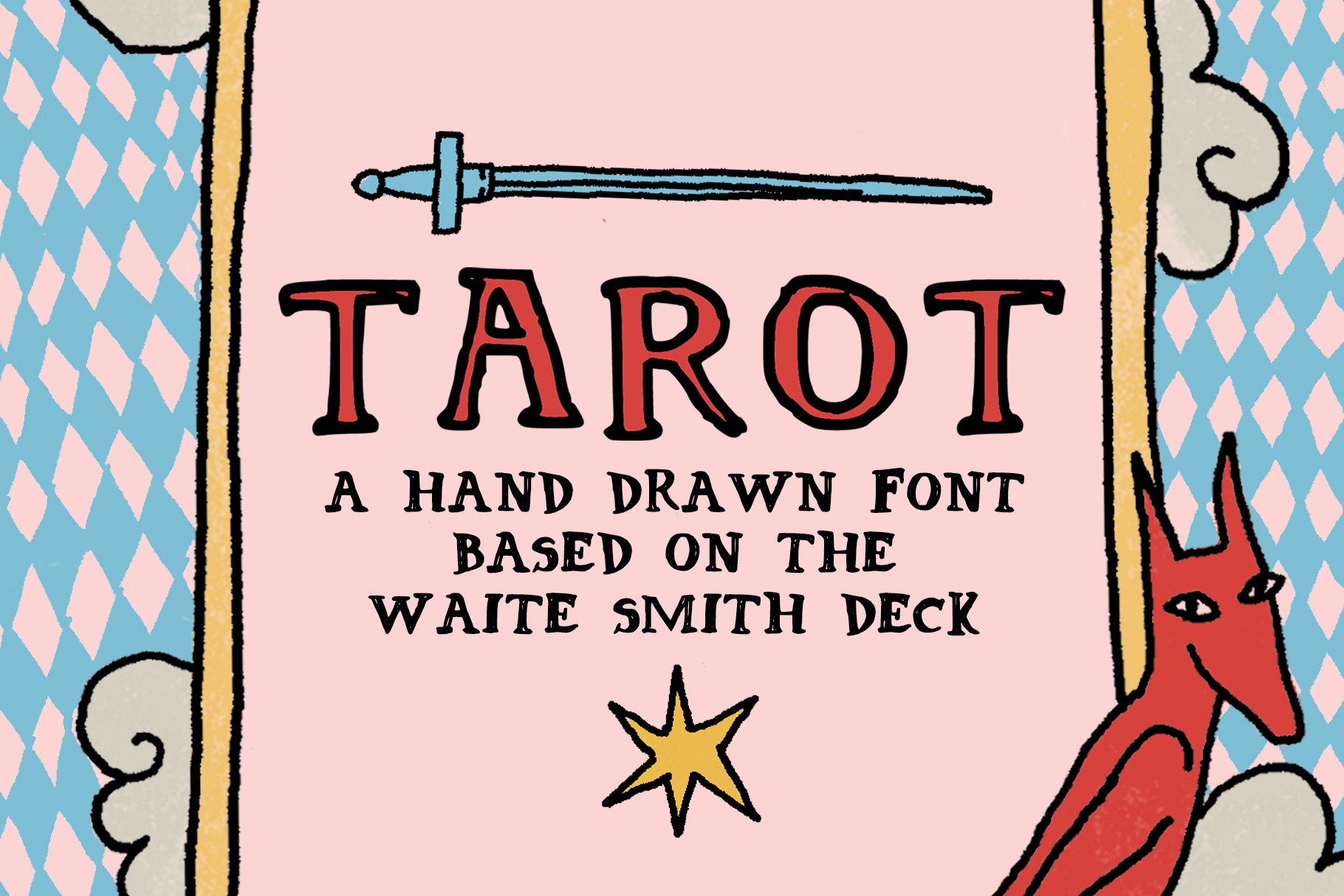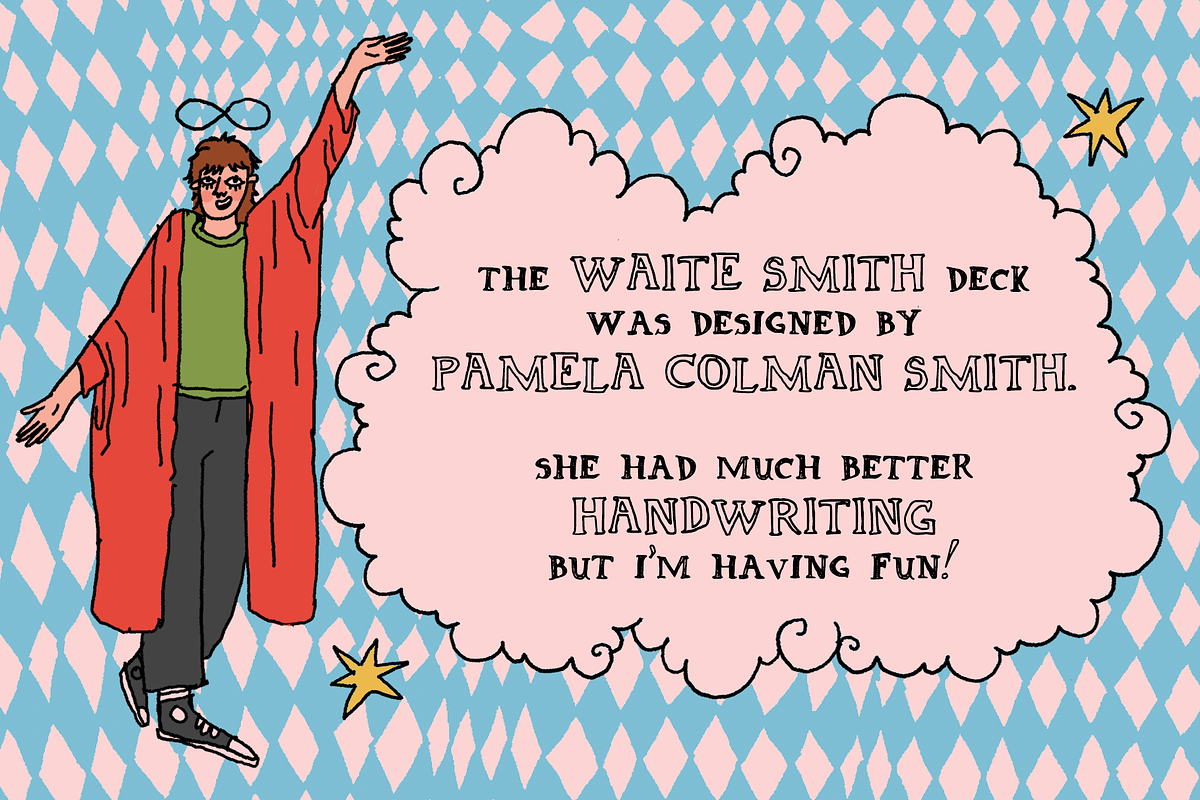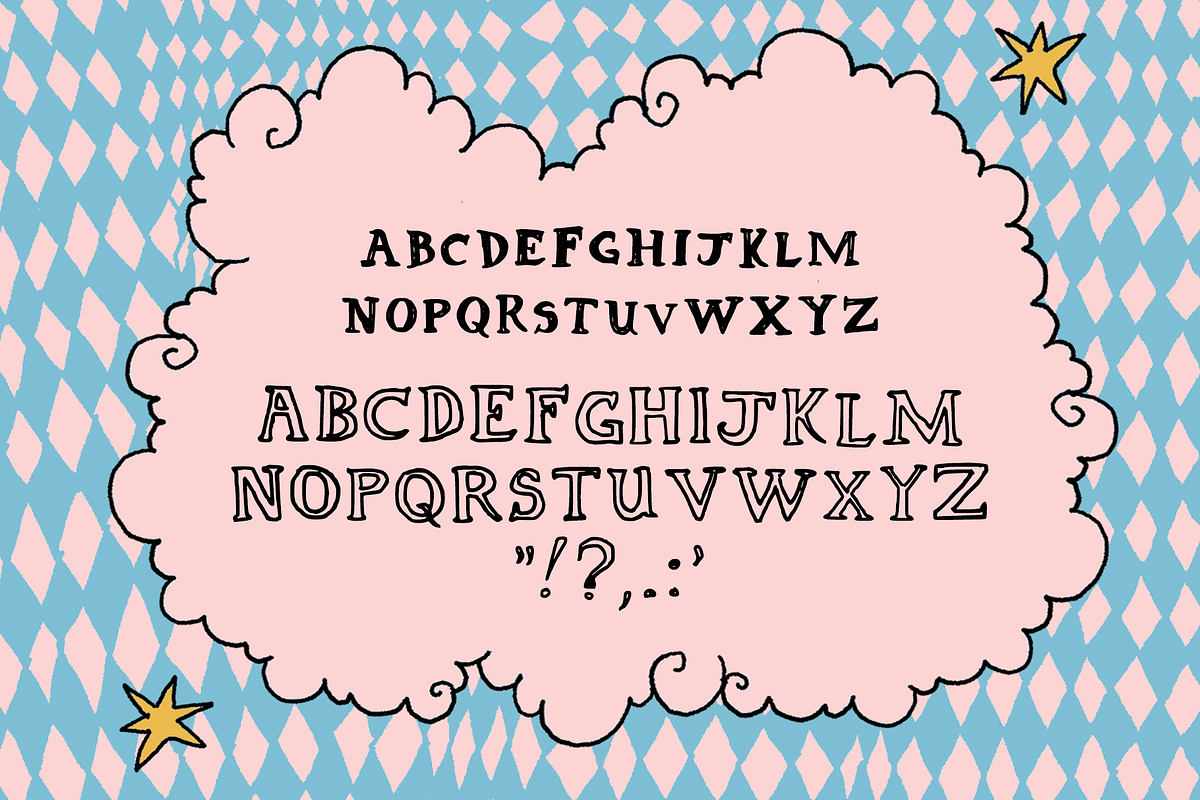
Tarot Hand-lettered Font
TAROT is a handwriting font based on the Waite Smith deck! If you've spent sleepless nights wondering what Pamela Colman Smith's 1909 rough drafts looked like, this font might help!
Lowercase is smaller and darker, uppercase is sketchier and open.